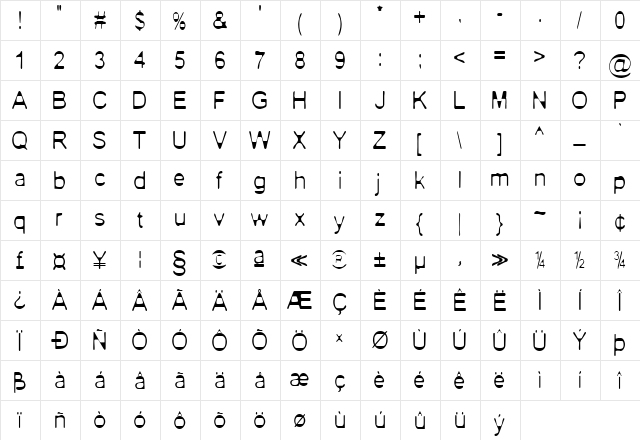
BN BoyfriEnd Regular Font Preview
BN BoyfriEnd Regular
Design Context for BN BoyfriEnd Typeface
BN BoyfriEnd is a composed and adaptable typeface that performs quietly and consistently across a wide range of design contexts.
Pro Tip: Use BN BoyfriEnd in both headline and body roles to test its range before committing to a single application.